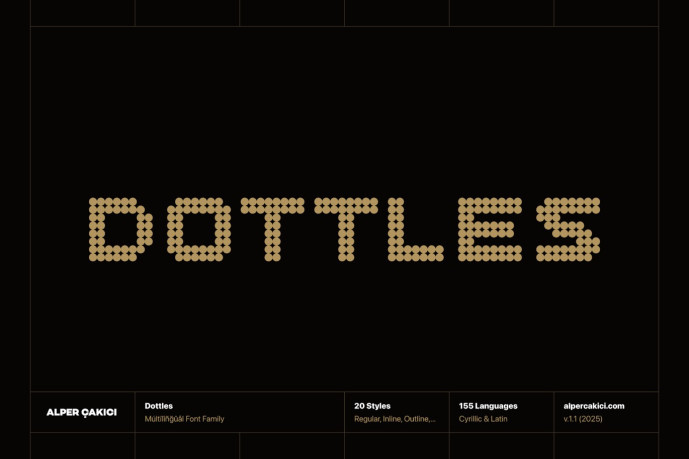
Dottles Font Family
Discover Dottles, a fun and personality-filled family of geometric dot fonts ! Designed for creative and bold projects, Dottles combines a clean structure with a playful, dot-based style.
of points.
You’ll get a wide range of styles: Regular, Inline, Outline, Sharp, Diamond, Octagon, Hexadecagon, Pattern styles, and more. Mix and match them, layer them, and easily create eye-catching illustrations. Dottles supports over 155 languages ​​and the entire Cyrillic alphabet .
so that your message can be broadcast worldwide.